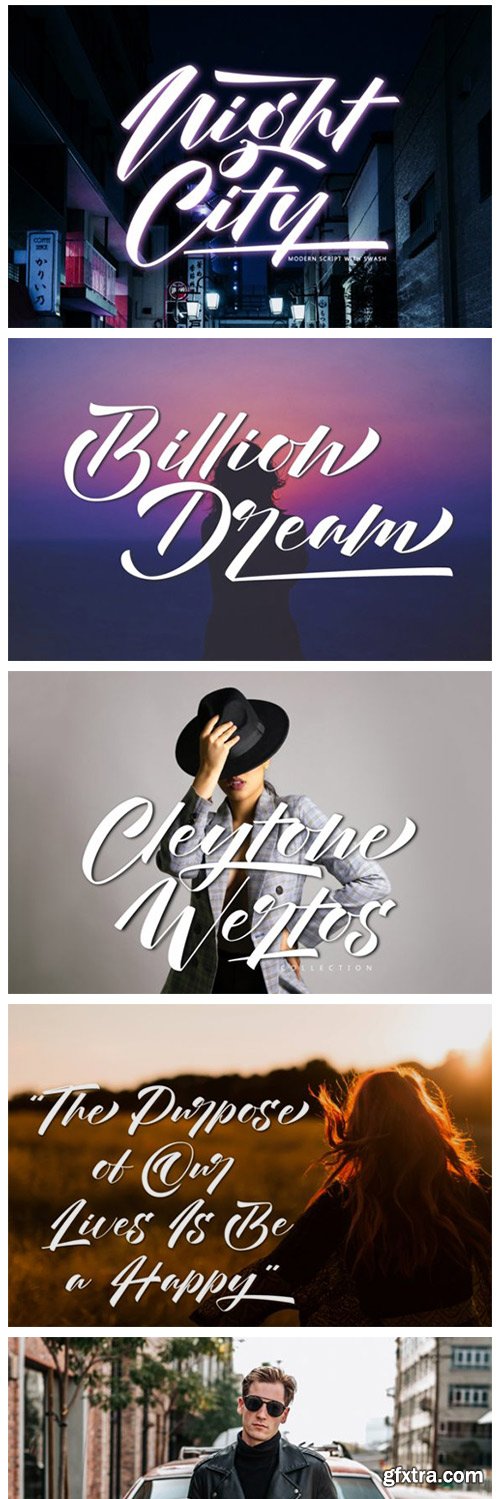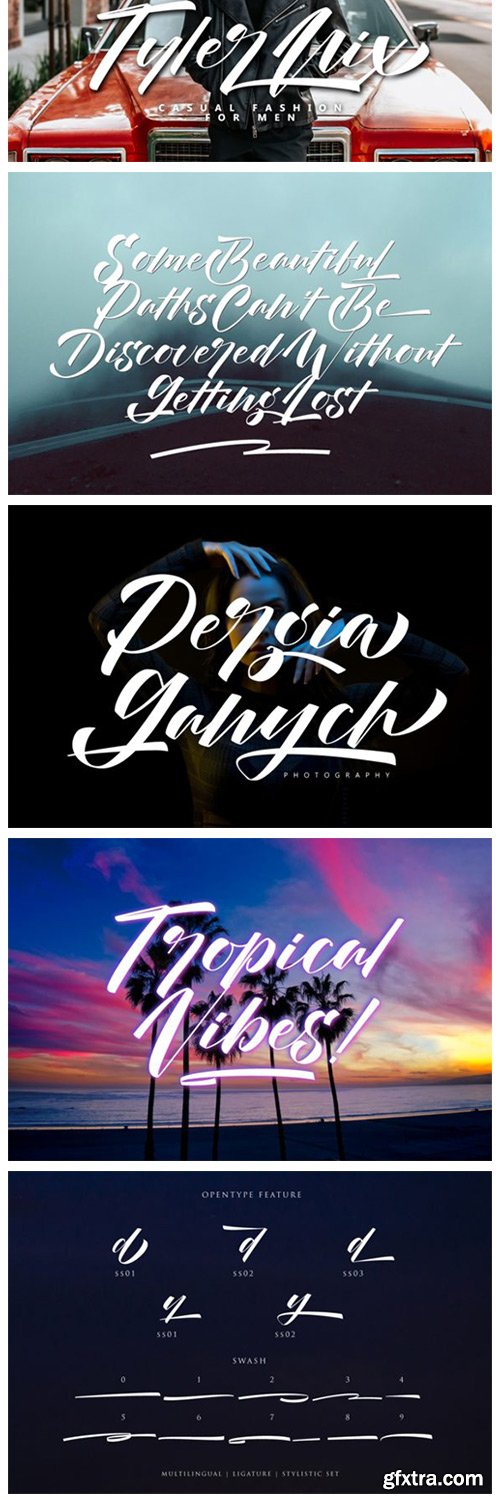
Night City Font
Night City is a beautiful and flowing handwritten. It looks stunning on a variety of designs requiring a personalized style, such as wedding invitations, thank you cards, weddings, greeting cards, logos and so on. This font is PUA encoded which means you can access all of the glyphs and swashes with ease!